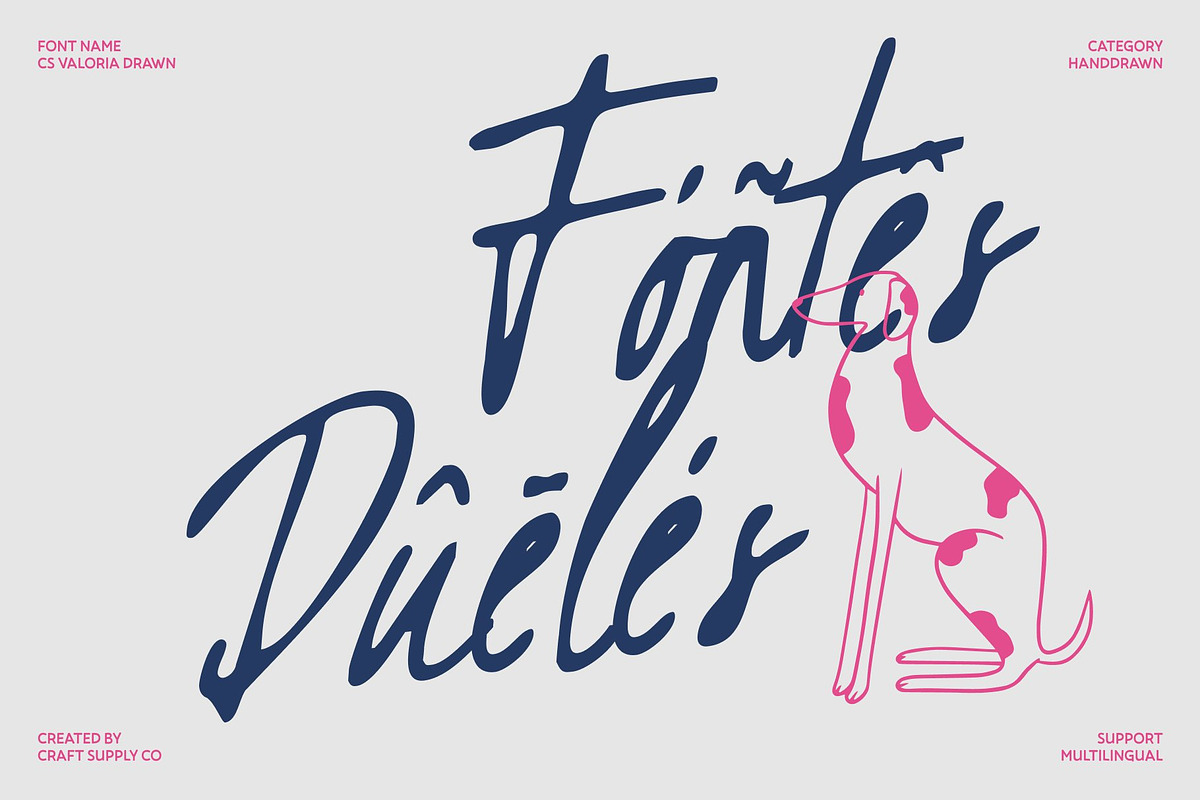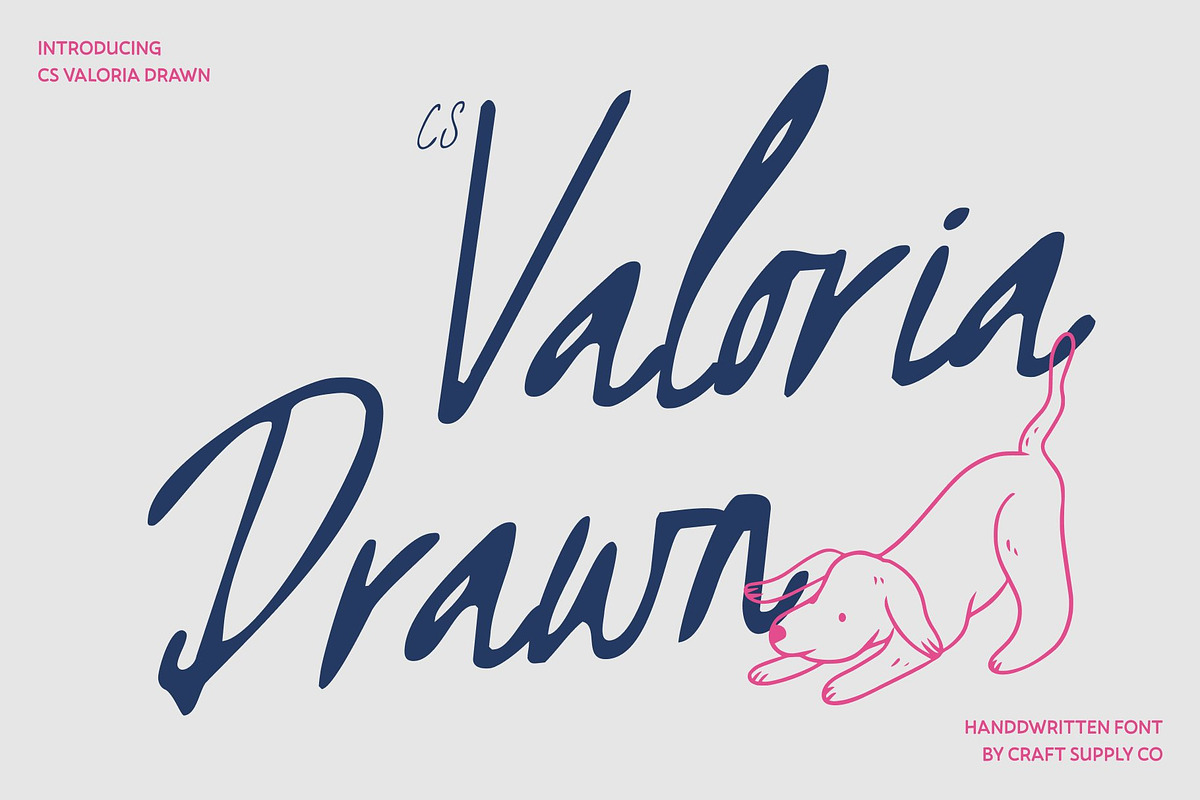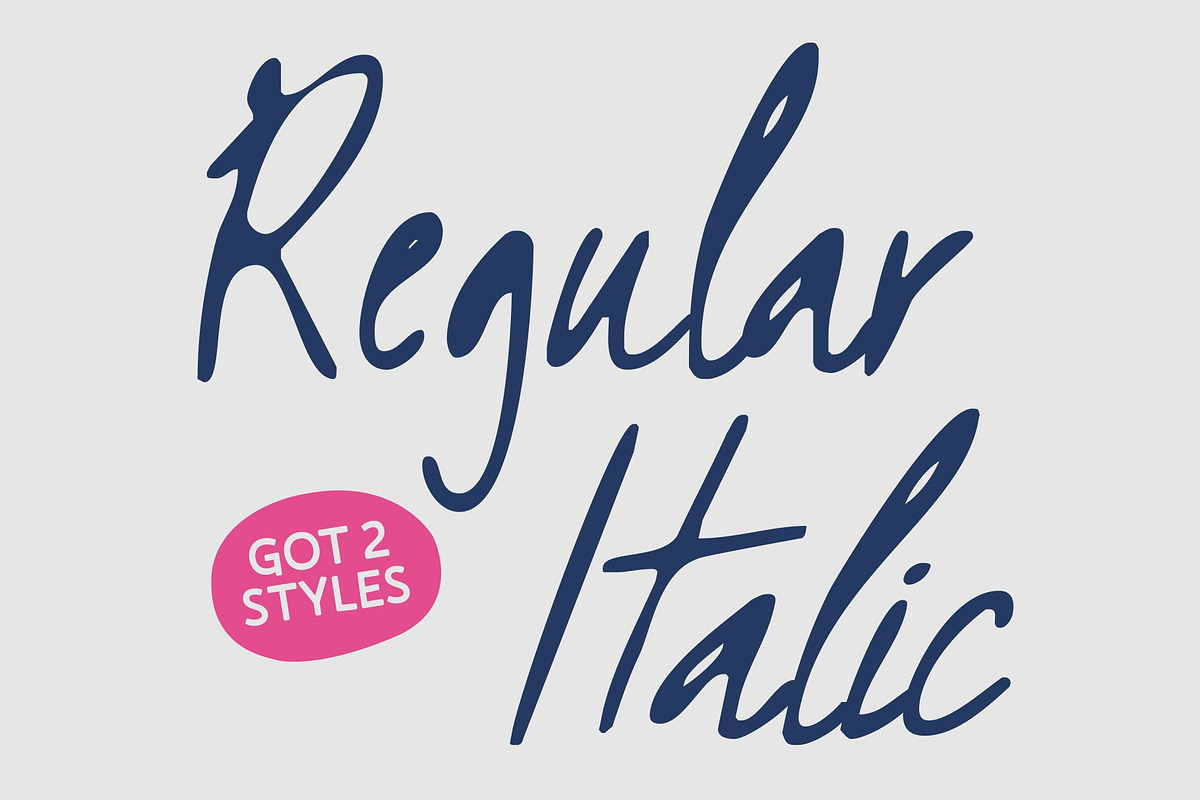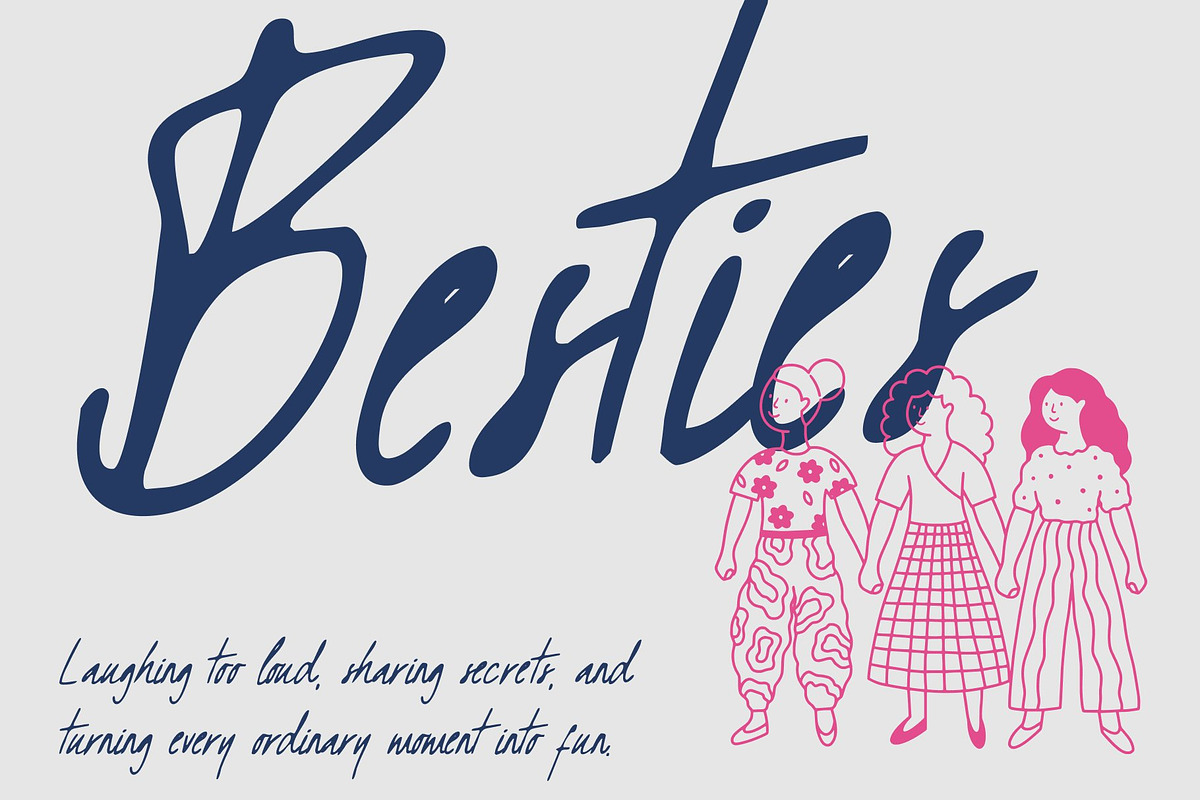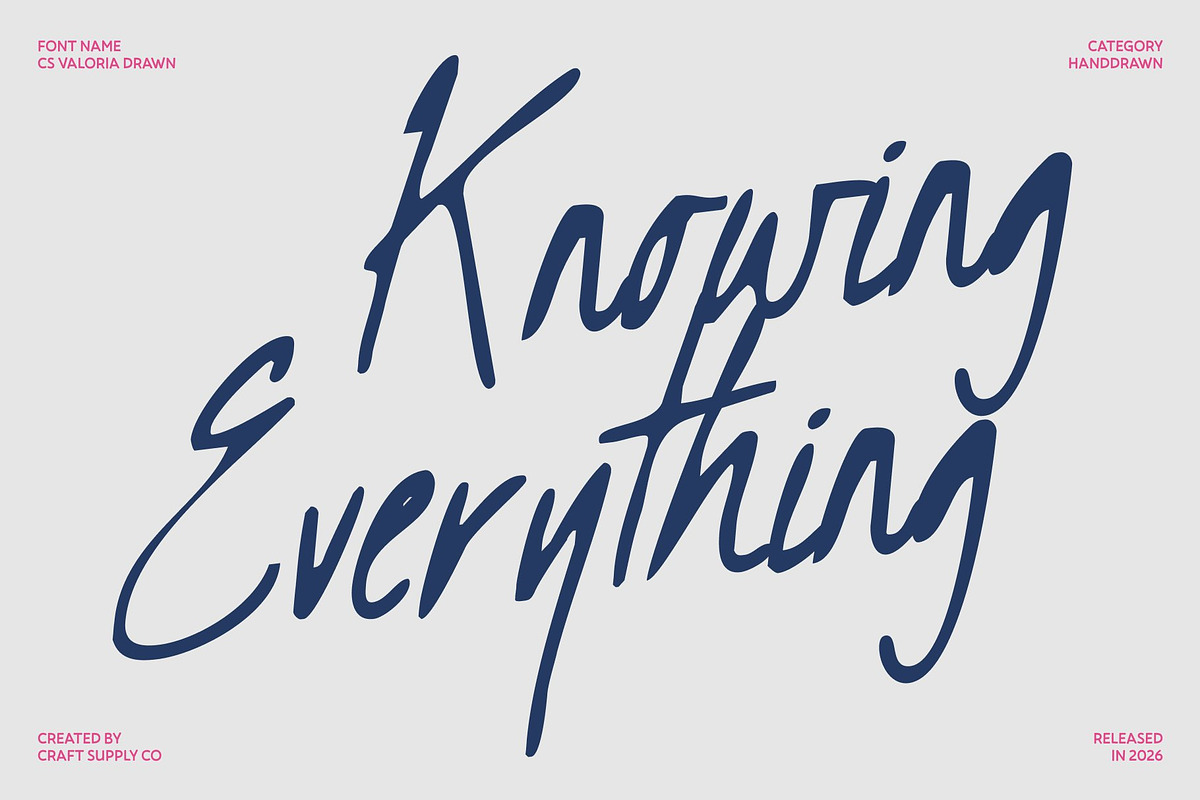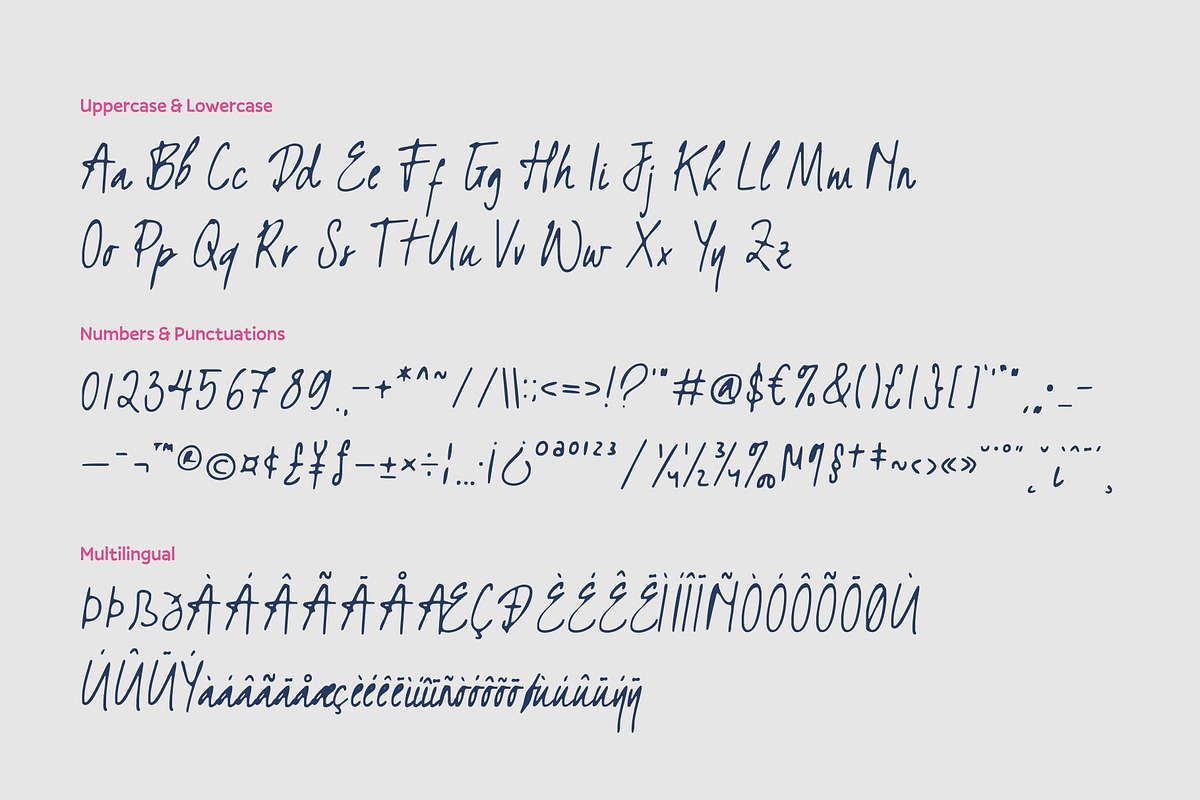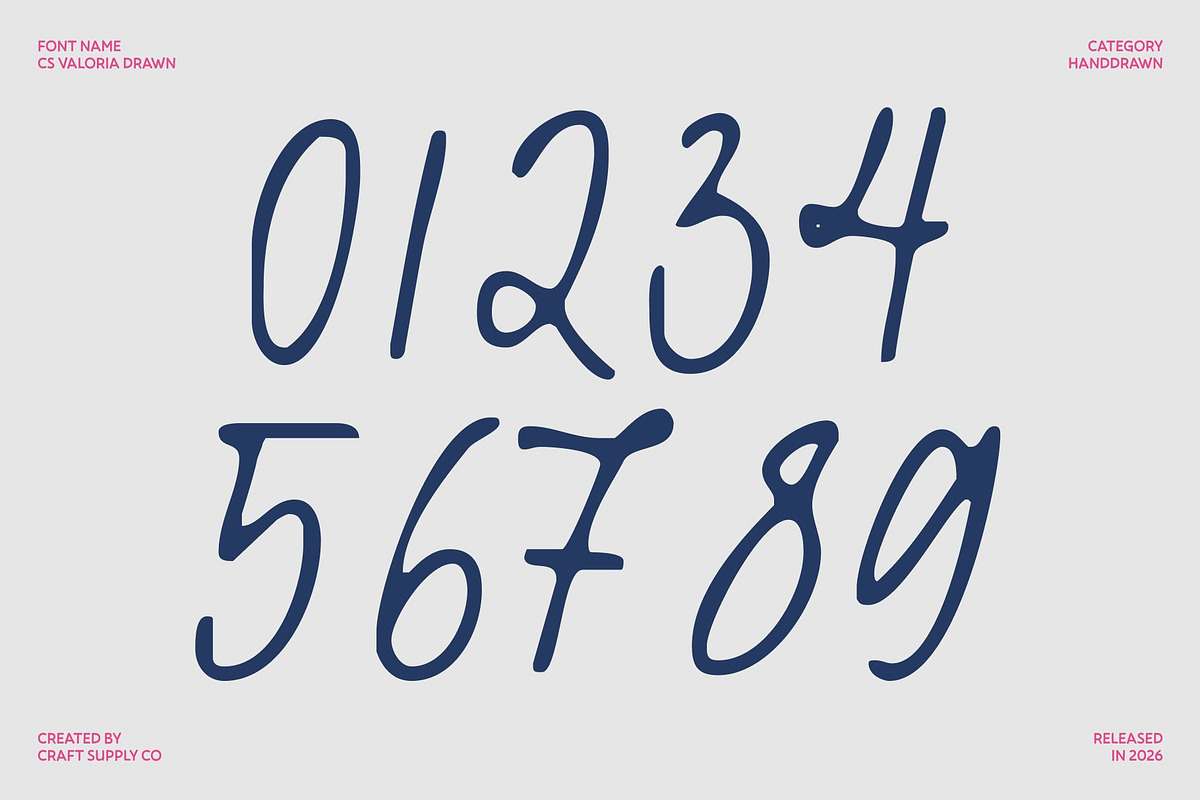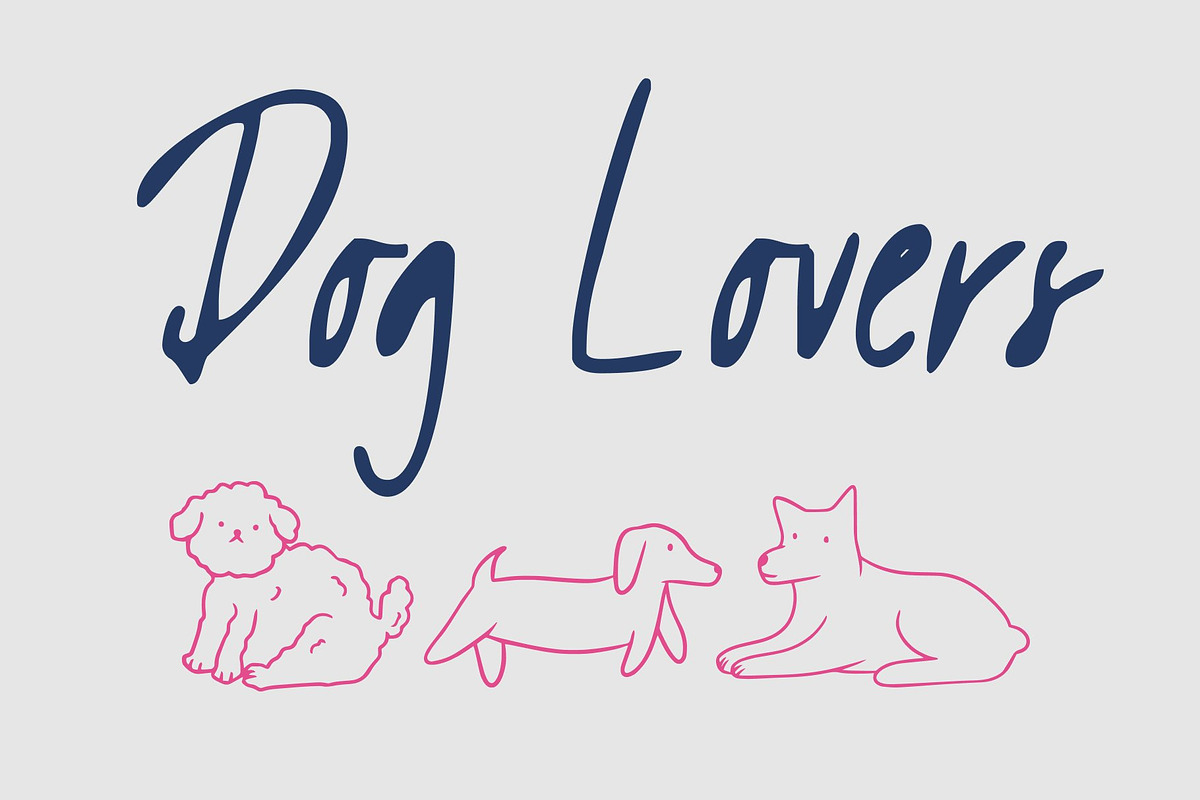
CS Valoria Drawn
CS Valoria Drawn – Soft Handwritten Expression with Authentic Warmth Handwritten Script Font with Natural Pen Character This is a soft and expressive handwritten script font created to capture the sincerity and charm of natural pen strokes. Inspired by real handwriting, it delivers a warm, personal feel that brings authenticity and emotion into every design. Its gentle flow and organic movement result in a relaxed yet refined script style that feels welcoming and genuine.
Organic Strokes with Expressive Detail The letterforms feature smooth connections and subtle variations in stroke weight, closely reflecting the natural rhythm of handwriting. These expressive details add depth and personality, allowing the font to feel human and heartfelt without sacrificing clarity. Each character flows effortlessly into the next, creating a harmonious and highly readable handwritten appearance.
Warm Personality for Personal Storytelling Designed to communicate warmth and intimacy, this font excels in designs that value personal expression and emotional connection. Its soft script style enhances storytelling, making messages feel sincere, friendly, and approachable. The balanced construction keeps the look clean and refined while preserving its natural charm.
Perfect for Branding, Quotes, and Invitations Ideal for personal branding, inspirational quotes, casual invitations, packaging, and social media graphics, this font adapts beautifully across creative applications. Its authentic handwritten style makes it especially suitable for lifestyle brands, small businesses, and projects that aim to feel personal, warm, and thoughtfully crafted.
- CS Valoria Drawn Regular
- CS Valoria Drawn Italic